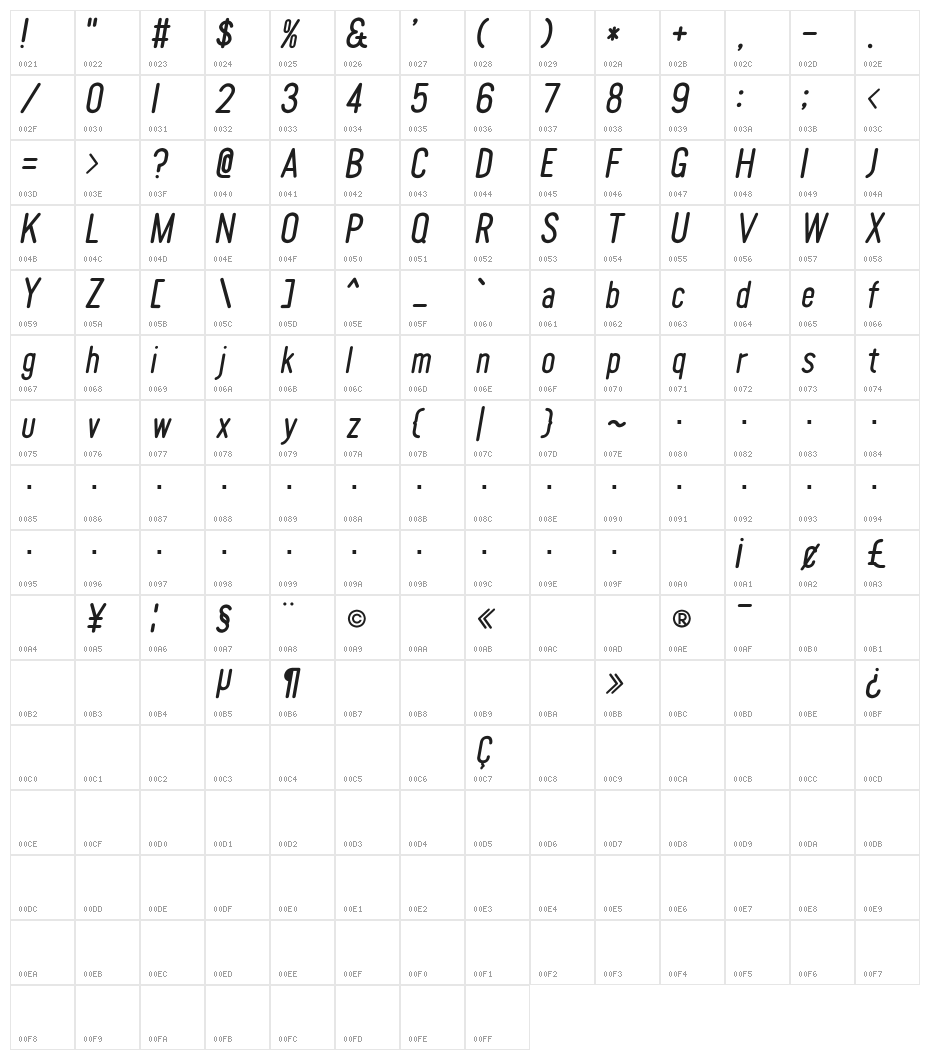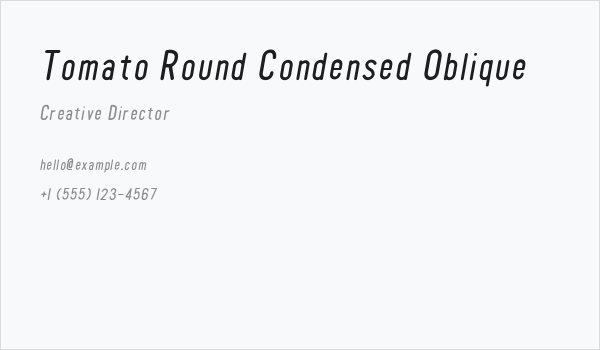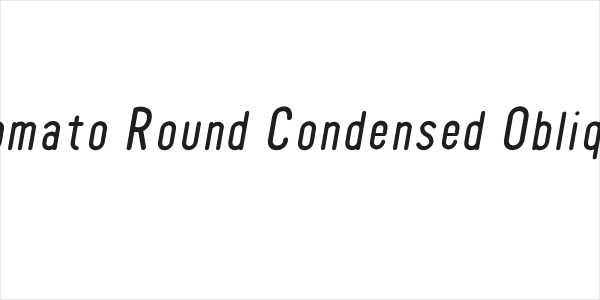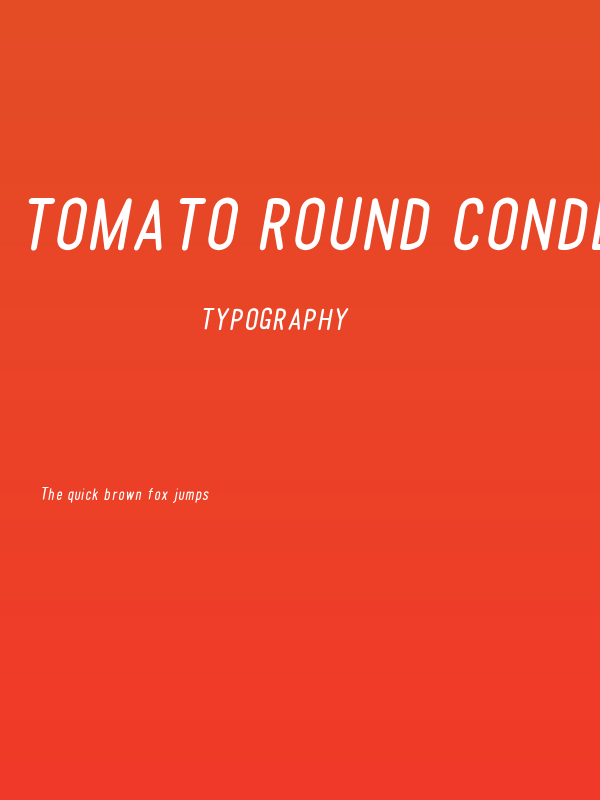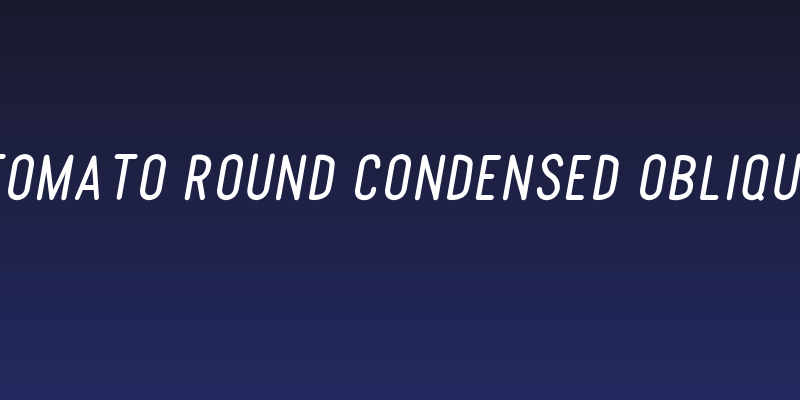
Tomato Round Condensed Oblique Font
Tomato Round Condensed Oblique Description
This font features a modern, rounded style with a condensed and oblique appearance. The characters are sleek and slightly slanted, giving a dynamic and contemporary feel. The rounded edges soften the overall look, making it approachable and friendly. The condensed nature allows for efficient use of space, making it ideal for headlines or areas where space is limited. The uniform stroke width provides a clean and consistent appearance, enhancing readability. The font includes a full set of uppercase and lowercase letters, numerals, and a variety of special characters, ensuring versatility for different design needs.
| Proposed Projects | Ideal for branding, advertising, headlines, and modern web design projects. |